Our Best Fonts For Christmas
Best Christmas Sweater Font – Xmas Sweater Stitch
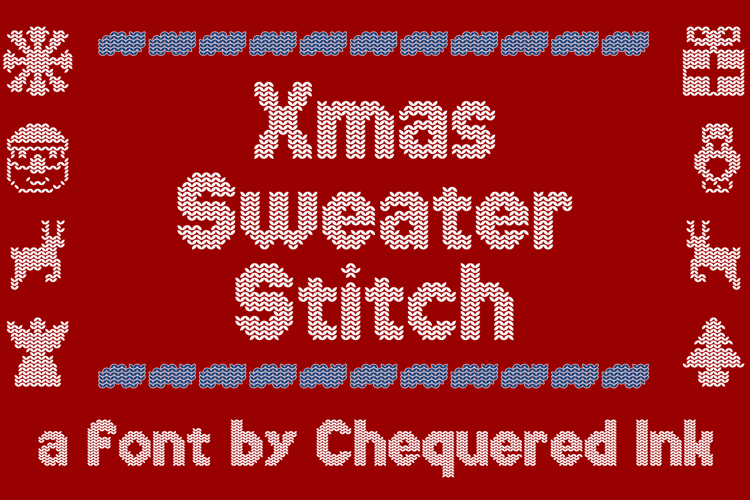
Perfect for T-shirts designed to look like Christmas Sweaters, or just for social media posts. Xmas Sweater Stitch is a Christmas Font which looks like it was knitted by hand!
It also includes a number of characters in the shapes of snowflakes, Santa Claus, reindeer, an angel, penguin, Christmas tree or a gift!
If you’re looking for a similar vibe, you can also try our fonts Simple Stitch and Christmas Jumper 2023.
Best Decorative Font – Xmas Fairy Lights
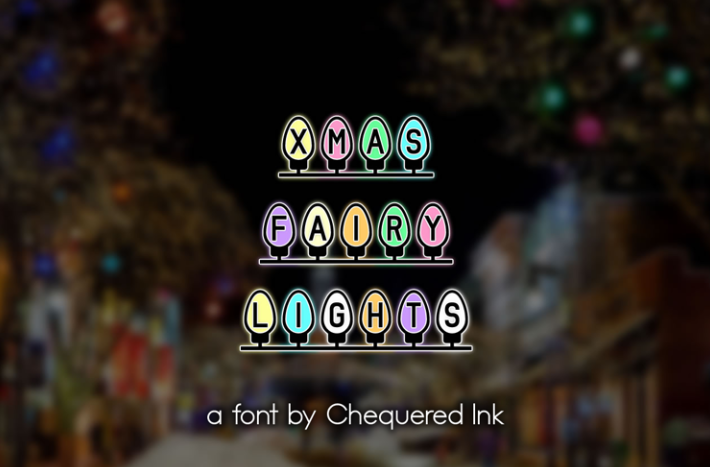
Looking for a way to make your custom Christmas Card stand out from the pack? Our font Xmas Fairy Lights will make your designs shine brighter than everyone else’s!
Best Snowy Font – Snow Deep
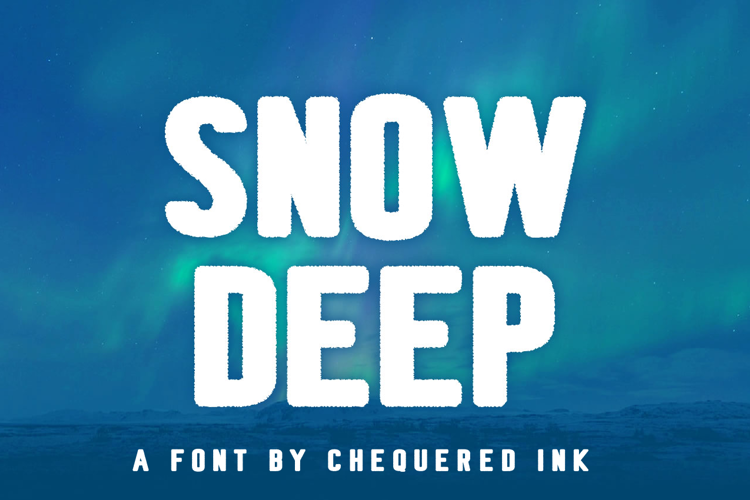
Snow Deep is a chunky, fuzzy font that looks great at high resolutions. The fluffy edges are reminiscent of those you leave when you’re walking through really deep snow.
Best Vintage Font – Carnival Centenary
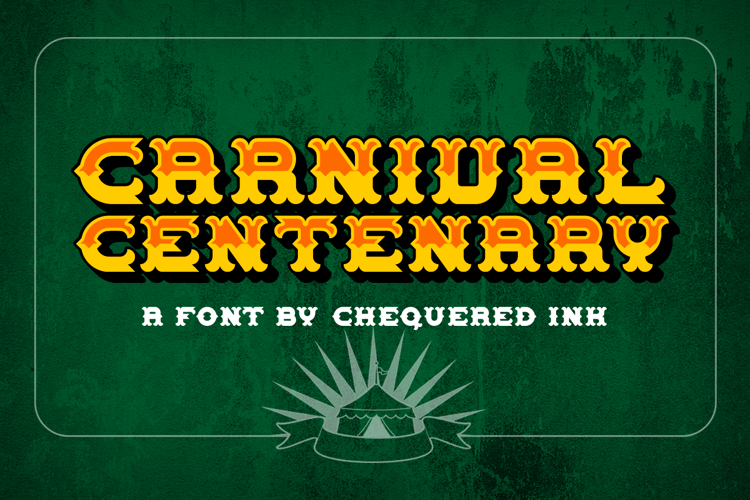
Carnival Centenary has a classic look to it that makes it excellent as a header for Christmas content. Use it on social media, game titles or websites. You can see it in action in the thumbnail for this blog post.
Best Handwritten Font – Saint Knick Knack
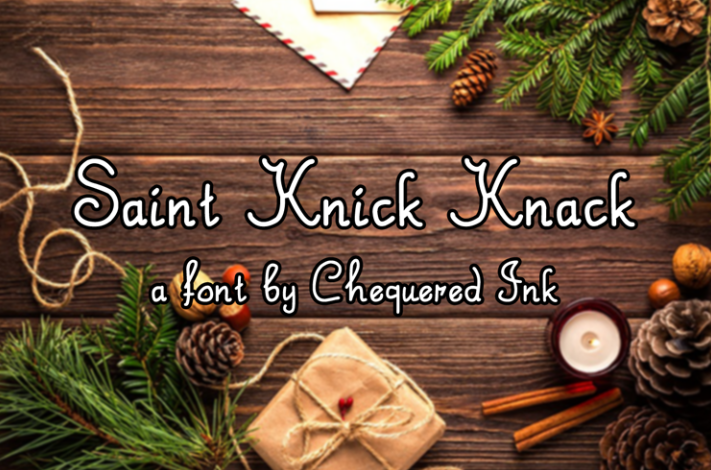
Saint Knick Knack is a handwritten font that takes the style of old-timey Christmas cards and simplifies it a little. Writing that letter to old Father Christmas? This font might be the one for you.
Best Icy Font – Swansong
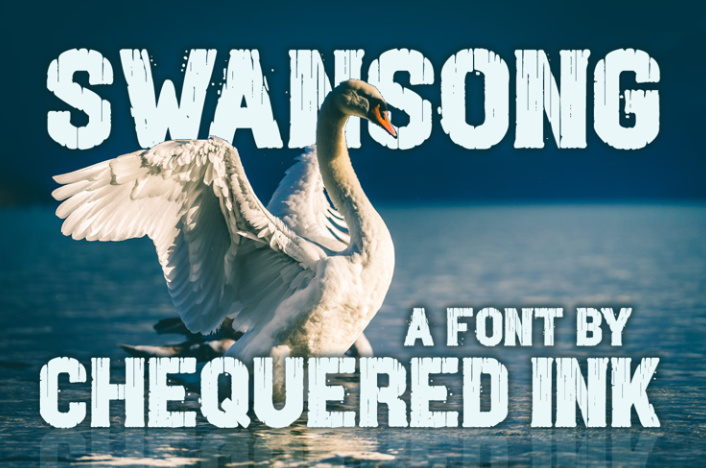
A recent addition to our catalogue, Swansong has chunky contours broken and cracked like great towering icebergs. This font is perfect for if your content is more winter focused, for example, we're using this font for our Winter Sale promotion.
Best Party Font – Bottled It
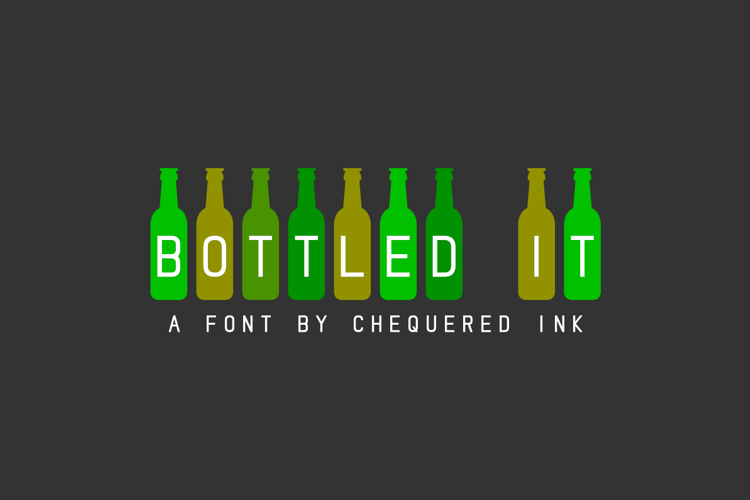
Kids look away – this one’s for the grown ups! Bottled It is a font composed to look like a series of beer bottles or wine bottles. If you’re having a rowdy Christmas or New Year’s Eve party, this font would be great for the invitation.
Most Playful Christmas Font – Questrian
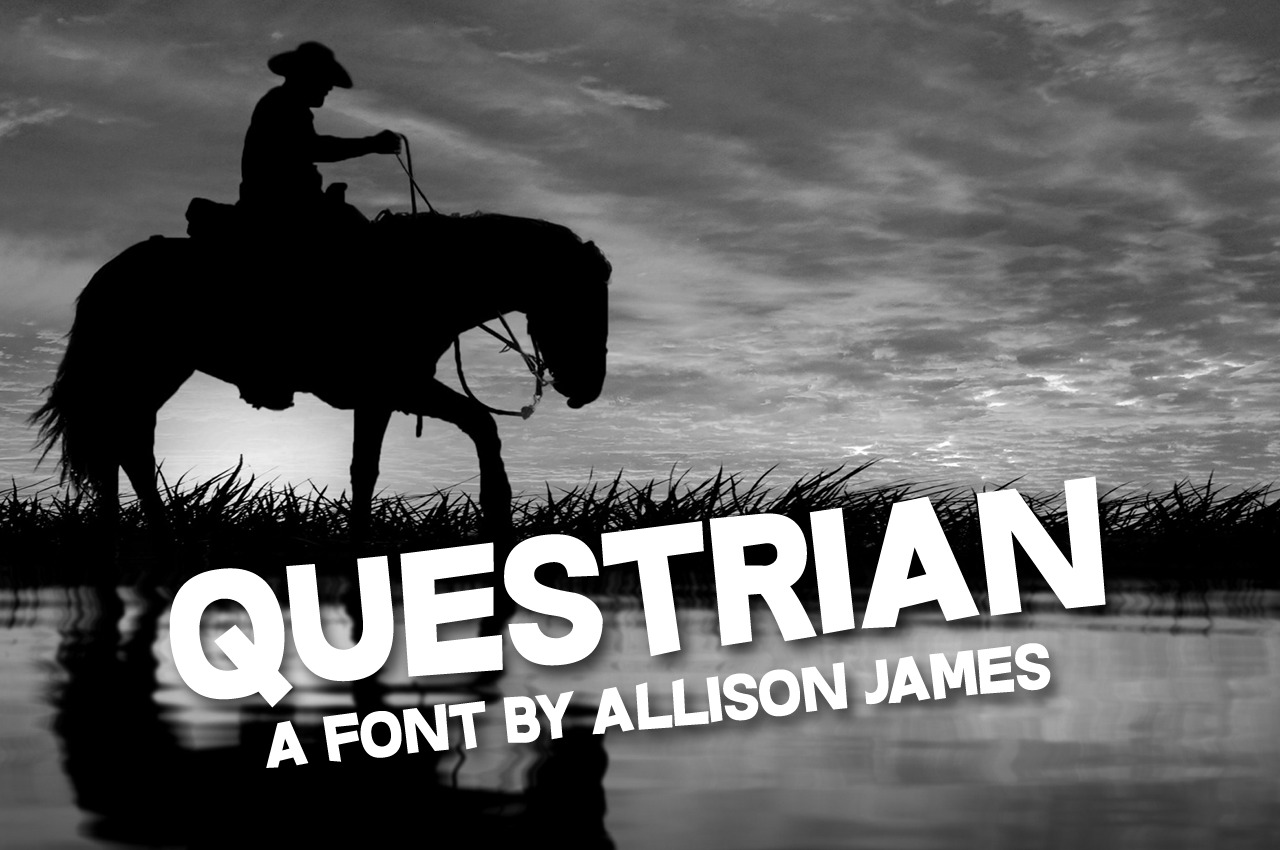
Although not explicitly Christmas-based, the font Questrian has a charm that makes it really useful for Christmas content. It’s playful and jolly, but also super readable unlike a lot of fancier fonts.
Best Classy Serif Font – Smorgasbord
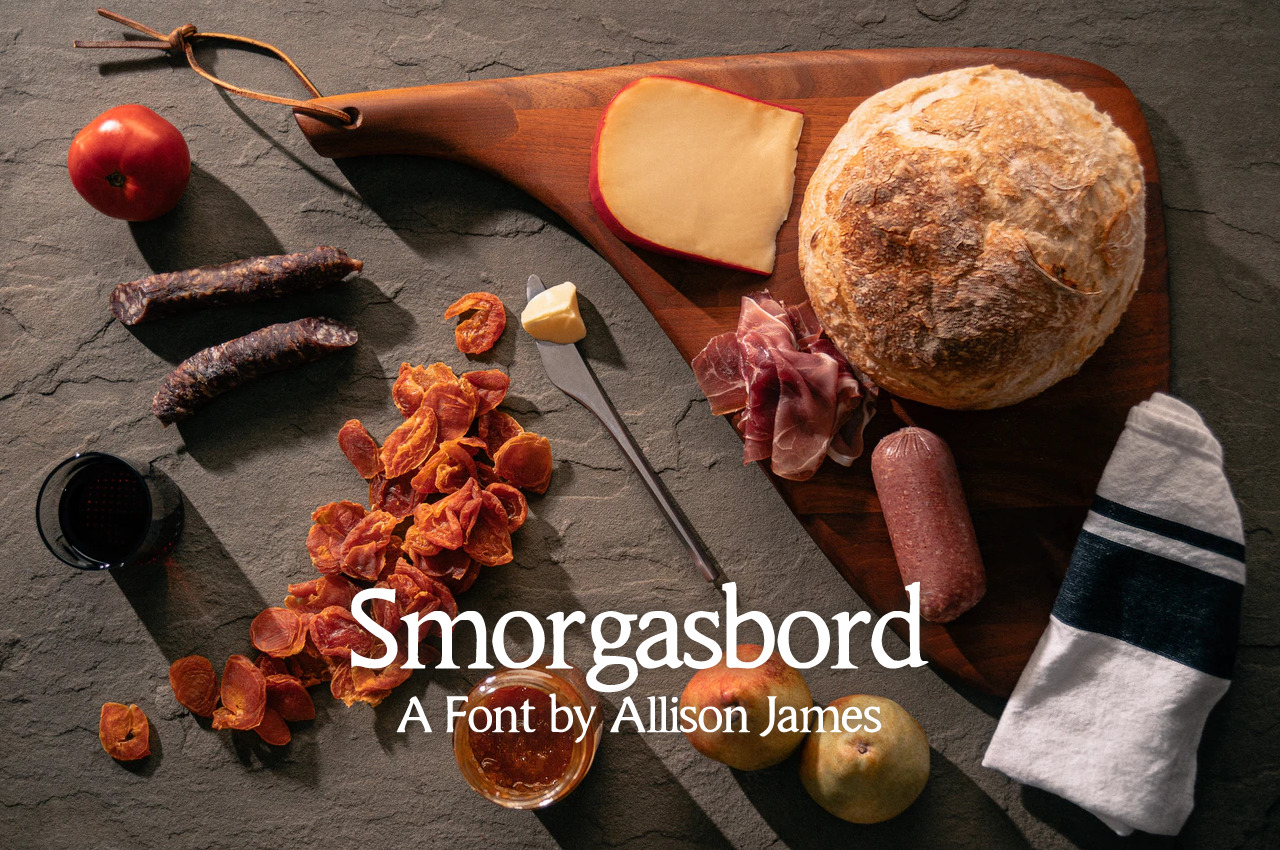
Sometimes you just want to stick with a classy serif font. Whether it’s for writing your Christmas cards, or creating a cosy atmosphere in a medieval game, Smorgasbord has got you covered.
Best Font for Christmas Cards – Le Voyage Dans La Lune
Finally, we have our font Le Voyage Dans La Lune, which looks excellent on Christmas cards. The just-slightly-wonky serifs with thick contours make the font feel as though it stepped out of the early 1900s.